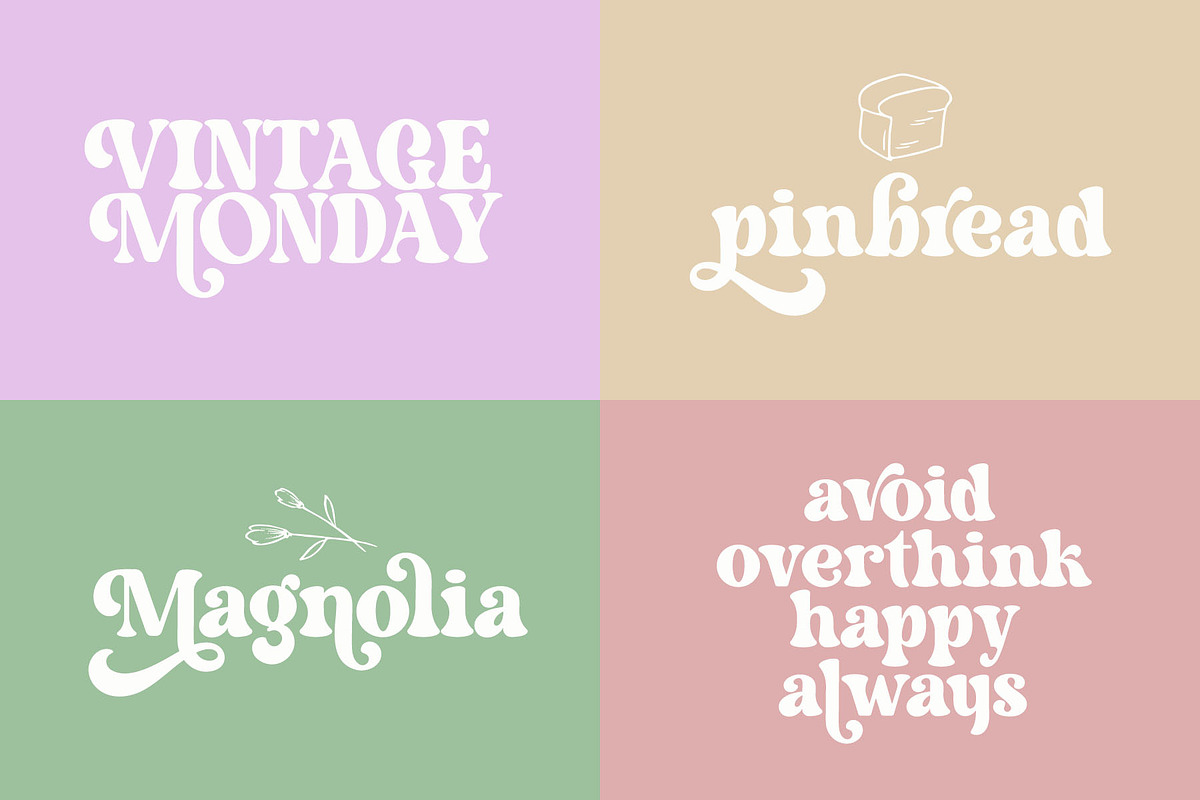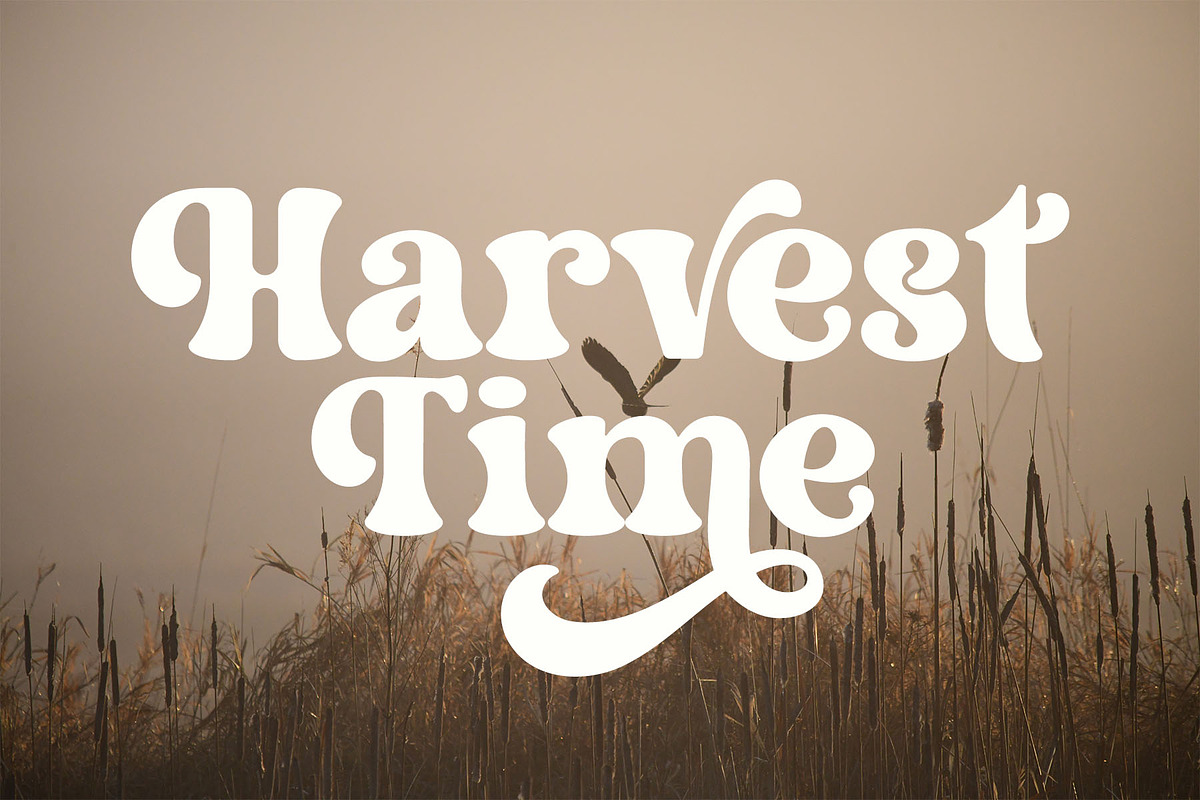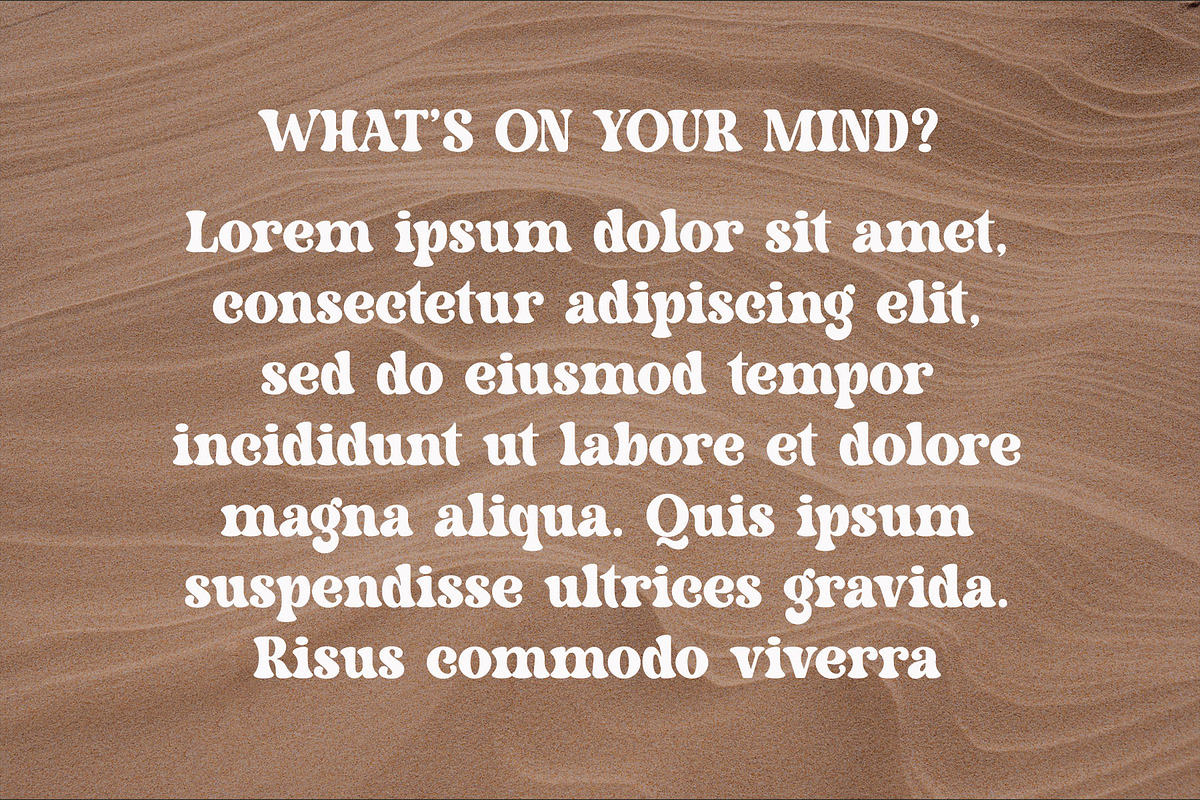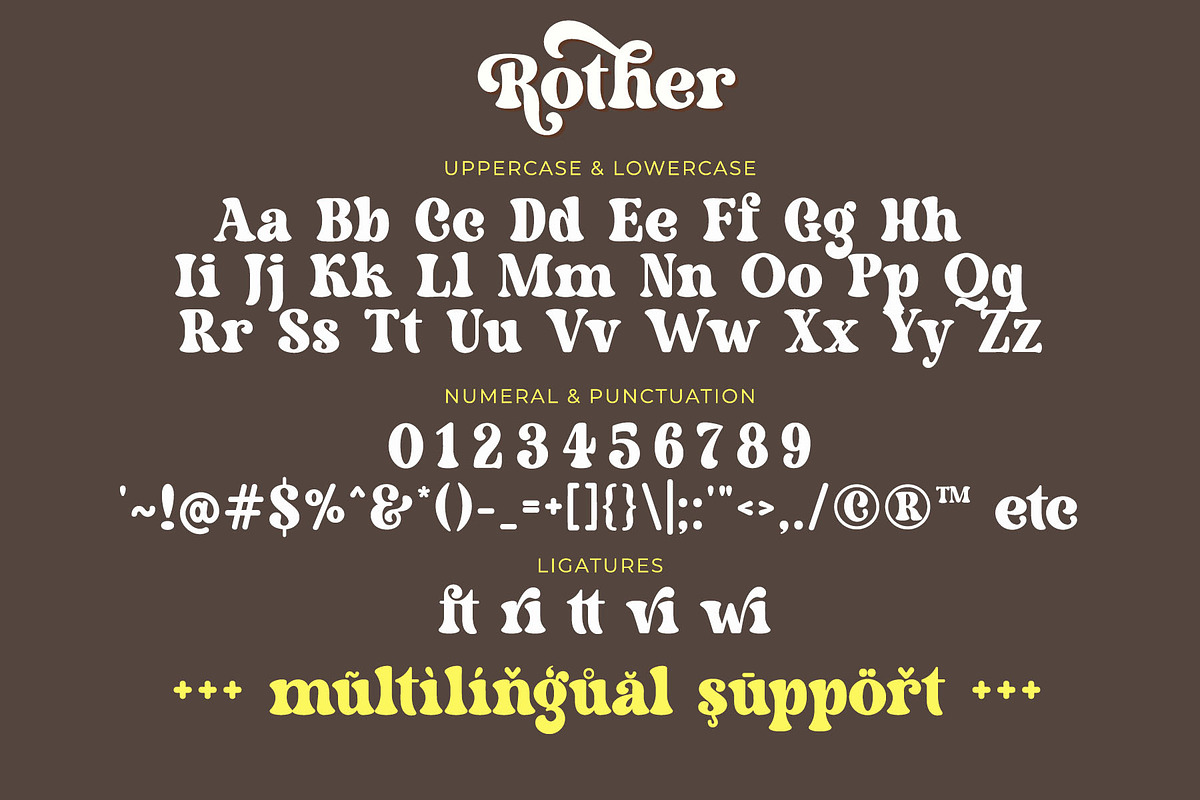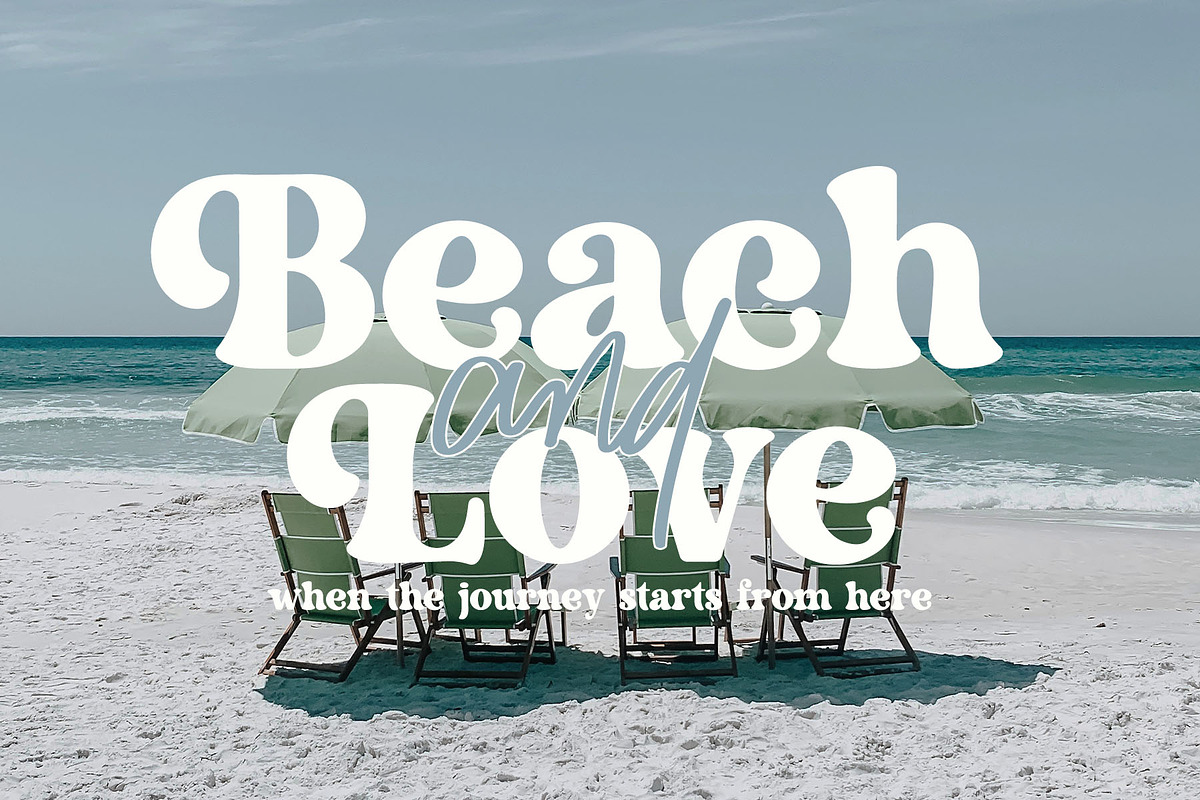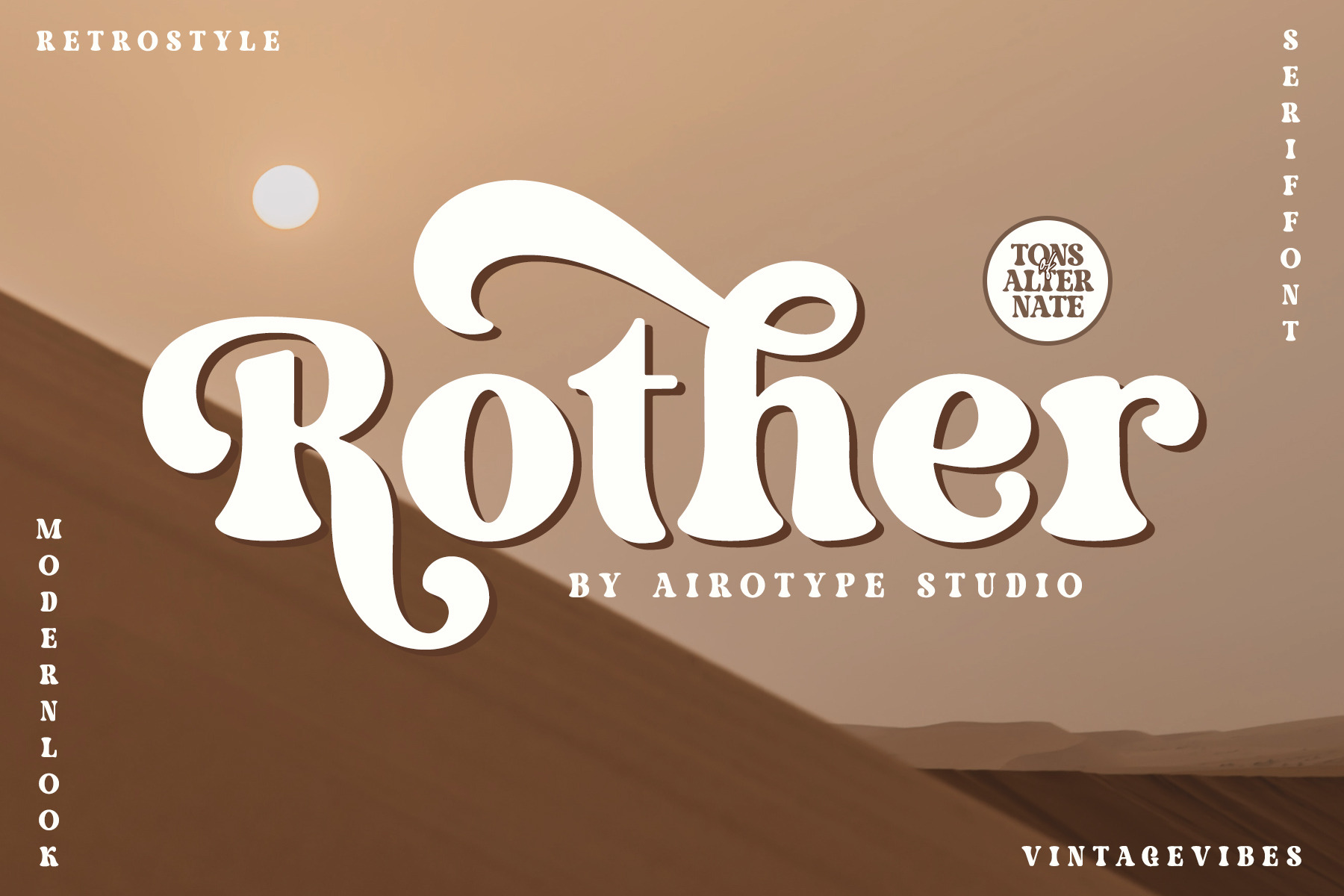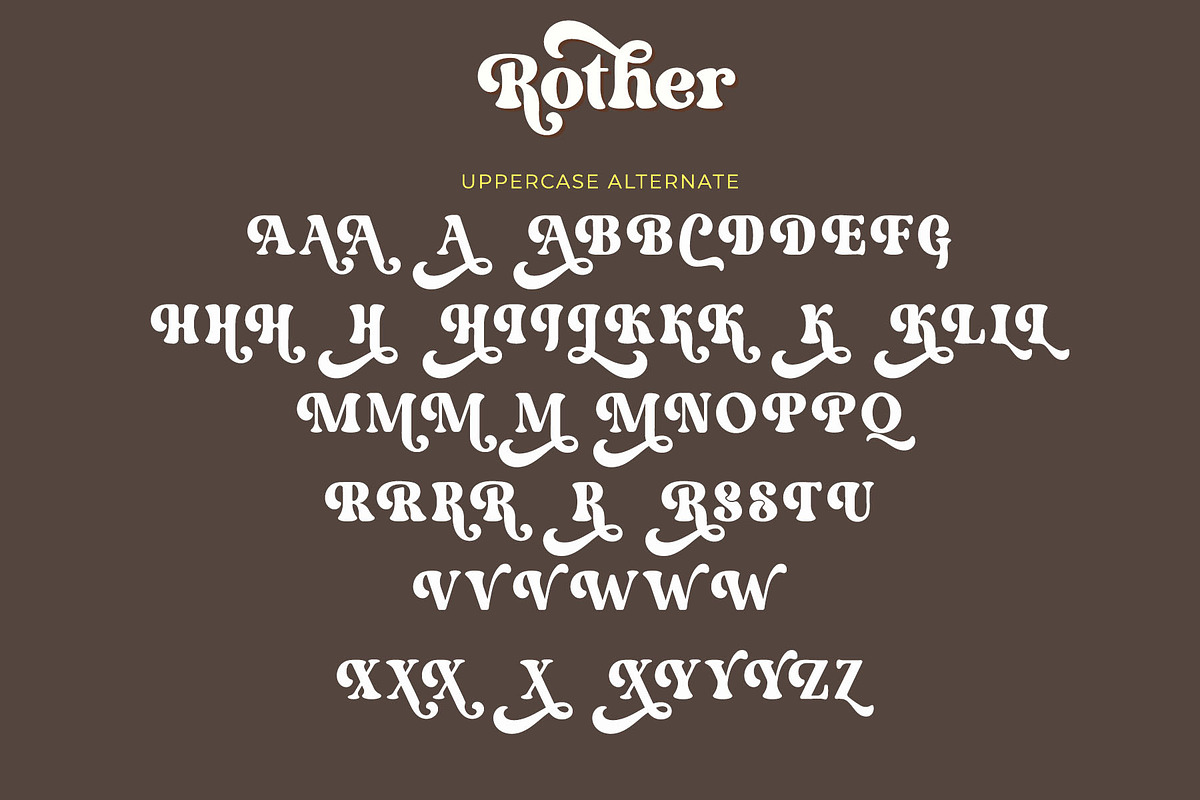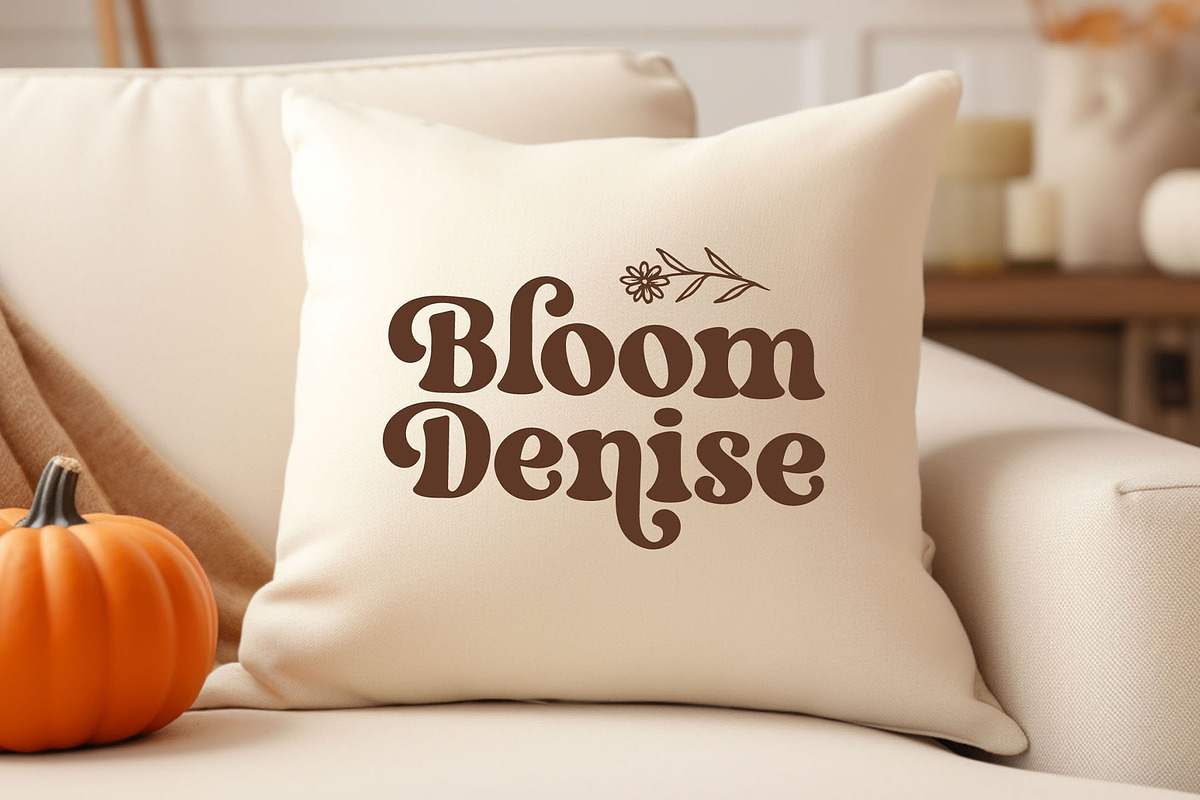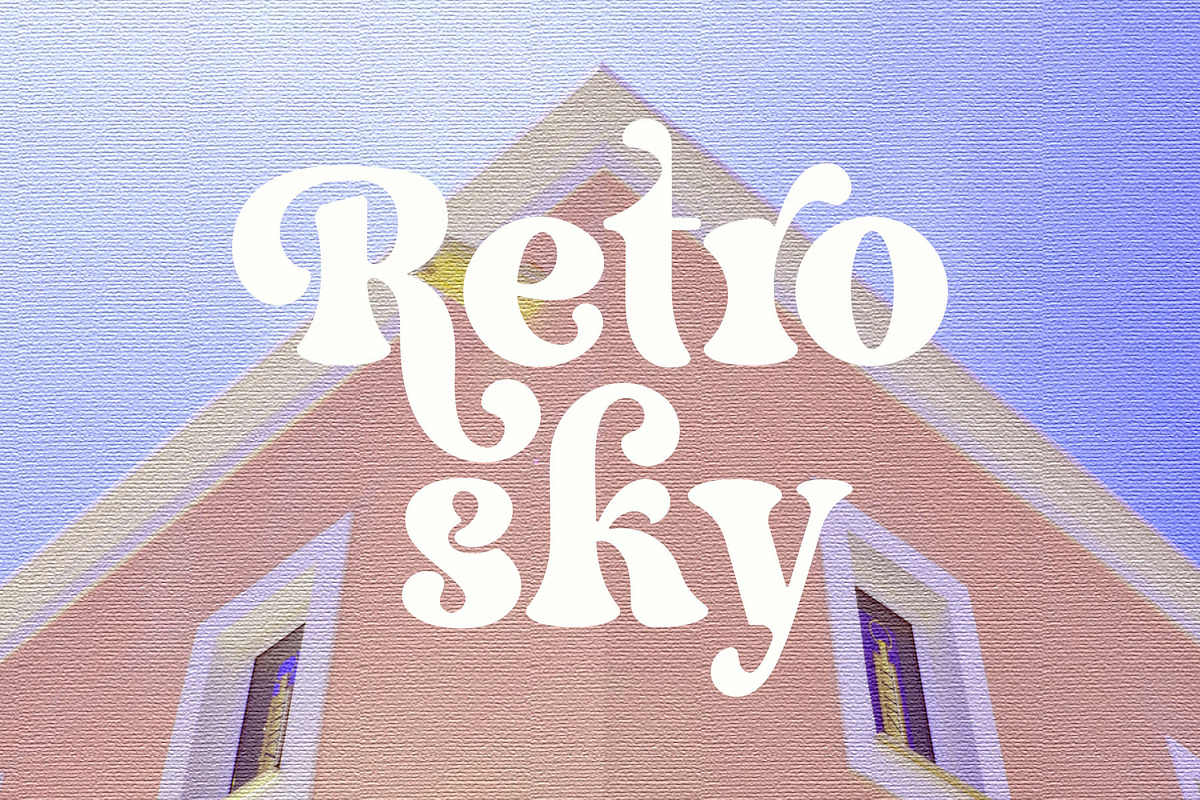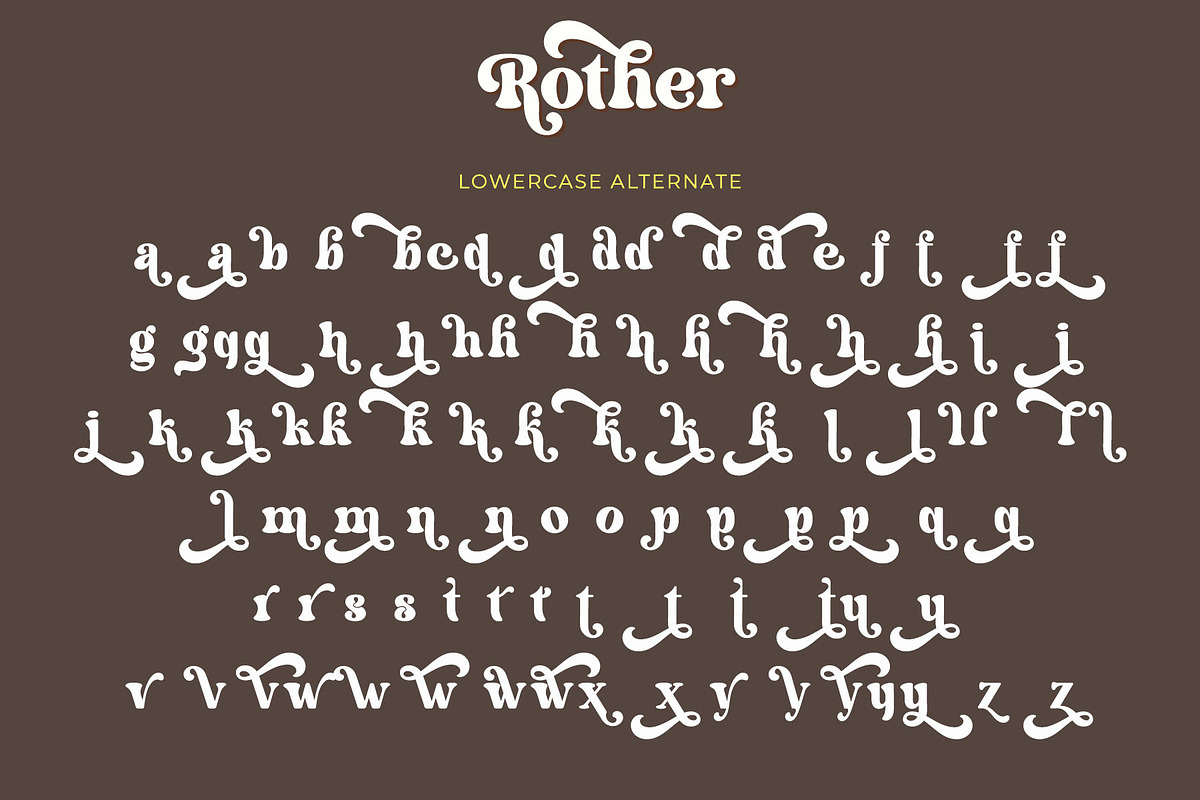
Rother - Modern Retro Serif Font
Rother is bold modern retro serif font. It is fancy, pretty, and having vintage touch.
This font is perfect font for any projects with modern vintage touch, such as logo, crafting, wedding invitation, branding, photography, sticker, sublimation, quotes, and many others.
- Uppercase and Lowercase (include PUA-Encoded extra glyphs)
- Most Multilingual Accent